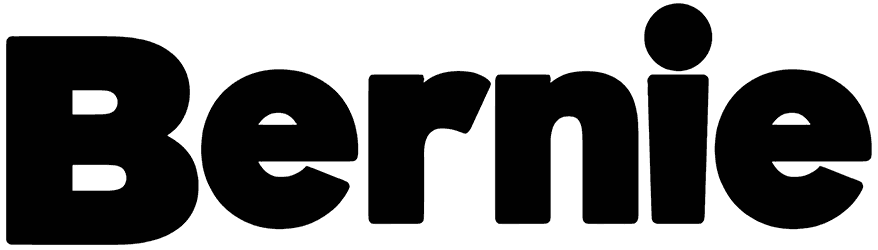
Bernie Font
The modern and humble visual of the Bernie font is going to adorn your words with a captivating mood. This banner font consists of bold and modest letters, but numerals are not available. Test this basic font for your next layouts, for instance, a car-for-sale billboard design, and convey a professional vibe to your followers.